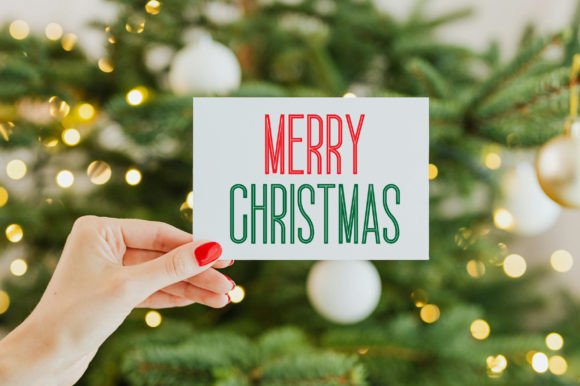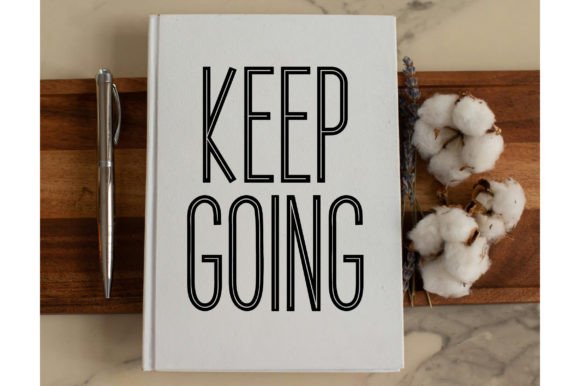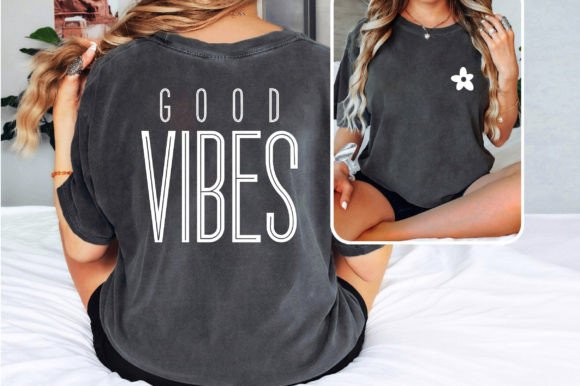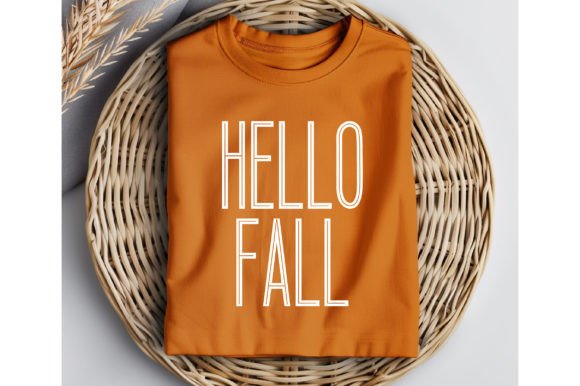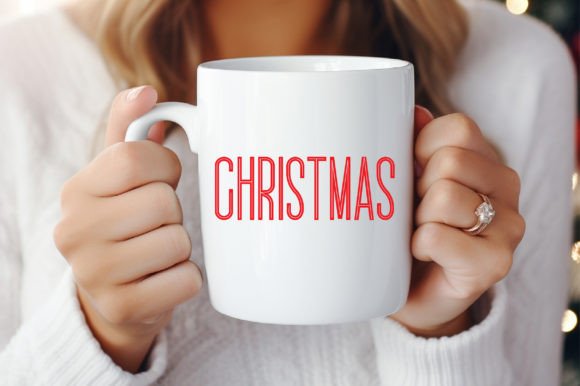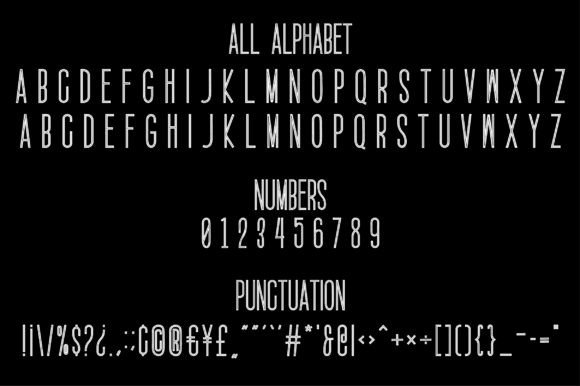
The Spark That Ignites Your Design
Have you ever stared at a blank canvas, waiting for inspiration to strike? The moment when everything comes together, and your creative vision takes shape. For designers, this is the holy grail – the spark that sets their imagination ablaze.
Enter Bright Font, the modern readable Display font designed to capture that spark. With its adaptability and charming charm, Bright Font is the perfect companion for any design project. Whether you’re creating movie posters, apparel labels, or product packaging, Bright Font’s exceptional design will leave a lasting impression.
As a designer, you understand the importance of the right font. That’s why Bright Font stands out from the crowd. Its versatility, combined with its modern aesthetic, makes it an invaluable tool in your creative arsenal. Get ready to unleash your creativity with Bright Font – the perfect spark to ignite your design.
Bright Font Key Features
- Font Family: Bright Font offers a unique and modern sans-serif font family, designed to provide exceptional readability and versatility.
- Size: The font family includes a range of weights, from Light to Bold, with 8 styles in total, allowing for precise control over typography.
- Resolution: Optimized for high-resolution displays, making it perfect for use in digital designs, such as websites, mobile apps, and video games.
- Unique Characteristics: Bright Font features a distinctive x-height and a unique letterform design, giving it a modern and sophisticated look.
- Scalability: The font is designed to be highly scalable, ensuring it remains legible and visually appealing at various font sizes and resolutions.
Bright Font Review
Overall, I was impressed with Bright Font’s potential ✨. The first thing that caught my attention was its modern and sleek design. The font is perfect for creating a clean and minimalist look in digital products, such as websites and mobile apps. I loved how it easily stands out on both light and dark backgrounds.
Here are some of its standout features:
- Legibility: Bright Font is highly legible, making it an excellent choice for digital products where readability is crucial.
- Flexibility: It’s highly versatile and can be used in a variety of contexts, from headings to body text.
- Customization: The font offers a range of customization options, allowing designers to fine-tune the look to suit their needs.
However, there are some limitations to consider ⚠️:
- Lack of italics: Bright Font does not offer italics, which can limit its use in certain situations.
- Not suitable for print: While the font looks great on screens, it may not be the best choice for print materials due to its digital origins.
- Not as bold as other fonts: Bright Font’s bold weight may not be as impactful as other fonts on the market.
Overall, Bright Font is a solid choice for designers looking for a modern, clean font for digital products. While it has its limitations, its strengths make it a great addition to any design toolkit.
Tips for Getting the Most Out of Bright Font
Here are some tips to help you get the most out of Bright Font:
- Use Bright Font to create visually appealing headlines and titles.
- Use Bright Font in combination with other design elements to create a cohesive look.
Bright Font is commonly used for:
- Creating eye-catching headlines and titles.
- Designing marketing materials, such
Alternatives to Bright Font for Designers
Open Sans is a clean and modern sans-serif font, ideal for digital products and websites. It’s highly legible and works well for body text and headings. Compared to Bright Font, Open Sans has a more subtle feel, making it suitable for a wider range of design projects.